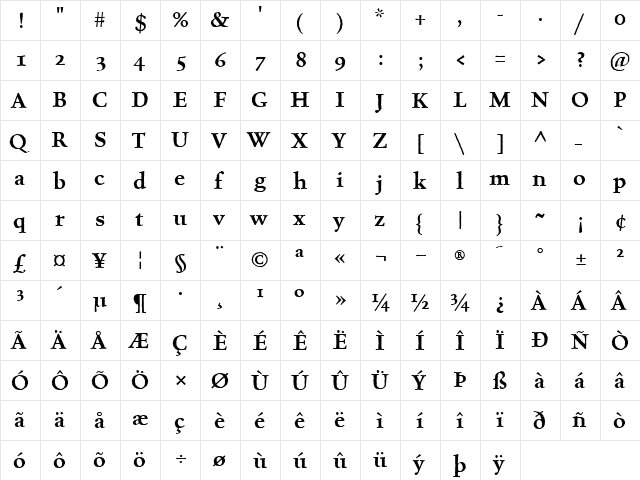
CelestiaAntiqua-SemiBold Semi Bold
Design Context for CelestiaAntiqua-SemiBold Typeface
CelestiaAntiqua-SemiBold takes a measured approach to typography — its balanced proportions and neutral character make it a reliable workhorse for both digital and print work. The heavy weight commands attention and anchors typographic hierarchies.